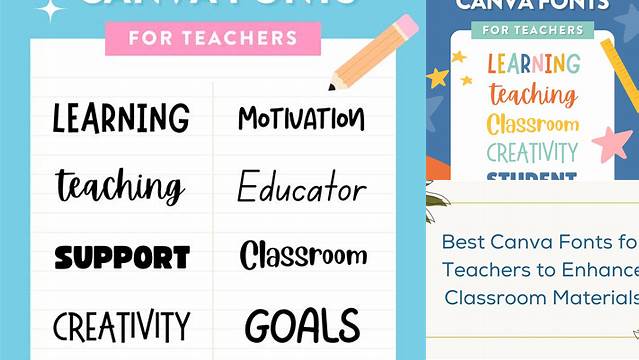
Canva Fonts For Teachers: Design Guide For Classrooms
Hey teachers! Ready to jazz up your classroom materials and make learning even more engaging? Choosing the right fonts in Canva can make a huge difference! It’s like picking the perfect outfit – it needs to look good and feel right. In this guide, we'll dive into some popular Canva fonts for teachers that are perfect for everything from worksheets to posters, ensuring your creations are both visually appealing and easy to read. Let's face it, we all want our students to enjoy the learning process, and a well-designed resource can go a long way. No more boring handouts, folks! We're talking about transforming your lessons into eye-catching experiences. Get ready to boost your designs and make your teaching materials pop! Now, let's get started with some of the best fonts to use. We'll explore different styles, from playful to professional, so you can find the perfect match for your unique teaching style and subject matter. So, grab your virtual design tools and let's make some magic happen! After all, teaching is a form of art, and your resources should reflect that. Let’s make your classroom a visual wonderland where learning is a blast! We’ll go through the details of each font, highlighting its strengths and when it's most effective. Get ready to level up your design game and leave a lasting impression on your students. Your lesson plans are about to get a serious makeover, and your students will be thanking you. Let's explore some amazing font options together.
Why Font Choice Matters in Education
Alright, why does font choice even matter, right? Well, think of fonts as the voice of your design. Choosing the right font is super important because it sets the tone and guides the reader. Imagine trying to read a book with a tiny, curly font – ugh, not fun, right? The same goes for educational materials. A clear, readable font makes the learning process smoother and more enjoyable. First impressions are everything, and the font is the first thing people see. When designing educational materials, it is critical that the material is easy to read, and fonts play a big role in achieving this. A good font isn't just about aesthetics; it's about accessibility and usability. Certain fonts are more accessible for students with visual impairments, so choosing the right font can make your resources inclusive and welcoming. It is also about creating a visually appealing experience that grabs attention and keeps your students engaged. A well-chosen font can transform a simple worksheet into an exciting invitation to learn. Additionally, it’s about setting the mood. A playful font can create a fun and lighthearted atmosphere, while a more professional font can communicate seriousness and reliability. If you're making a presentation for parents, you'd likely choose a font that's clear and easy to read. Font choice is an essential element of the whole design. When it comes to teaching, it makes all the difference. Make sure to pick a font that complements your message and helps your students get the most out of your lesson. Don't underestimate the power of a well-chosen font! It’s a small detail that can have a big impact on the effectiveness of your teaching materials. Let's make sure every design counts!
Top Canva Fonts for Classroom Use
Okay, let’s get to the fun part! Here are some of the top Canva fonts that are perfect for teachers. These fonts are not only aesthetically pleasing but also highly readable, ensuring that your students can easily engage with your materials. We will go through some different font styles, giving you a wide array of choices for various design projects. From playful fonts for young learners to more formal options for older students, we will explore all kinds of cool fonts. Keep in mind that different fonts suit different purposes, so it's worth experimenting with different combinations and styles to find what works best for your classroom. We're talking about making sure your lessons are not only educational but also fun and engaging for your students. Prepare to step up your design game and create some killer resources. Here are a few of our favorites.
Playful & Fun Fonts
Let’s kick things off with some playful fonts perfect for younger learners. These fonts add a touch of fun and whimsy to your designs, making them perfect for elementary school materials and activities. These fonts are all about making learning fun and making the lessons more entertaining for the kids. They are meant to capture the imagination and bring joy to the learning process! They grab attention and are super easy to read, even for those just learning their ABCs. Let's dive in!
- Comic Neue: This font is a modern take on the classic comic sans. It is a fun and approachable font that is perfect for creating engaging materials for younger students. Its slightly rounded appearance makes it easy to read, and it adds a friendly touch. This font is ideal for headlines, short paragraphs, and any design where you want to create a fun, casual vibe. It’s a safe bet for any classroom material that you want to make kid-friendly.
- Permanent Marker: This font replicates handwritten notes. It's perfect for creating a personal touch, like adding instructions or notes that make students feel like they are getting a personalized message. Its informal style is ideal for worksheets, posters, and anything that requires a friendly, approachable feel. It brings a sense of authenticity and warmth to your designs, as if it's written directly from you!
- Bubblegum Sans: This font is bold, bubbly, and bursting with personality! It’s great for headlines, titles, and any text that needs to stand out. It adds a cheerful and energetic vibe to your designs and is perfect for young children. The font is easy to read. This font will definitely make your creations pop and make learning a joyful experience.
Clear & Readable Fonts
Sometimes you just need a font that gets the job done – clear, concise, and easy to read. These fonts are perfect for body text, worksheets, and any materials where readability is key. These fonts are like the workhorses of the design world, ensuring that your students can easily grasp the information you are sharing. These are all about clarity and efficiency. It's about making sure that your students can focus on the content without struggling with the font itself. Let's take a look!
- Open Sans: This is a versatile font that is both modern and clean. It is easy to read, making it perfect for worksheets, presentations, and any content that requires clarity. Its simple design ensures that students can focus on the content without being distracted by fancy typography. It's like the Swiss Army knife of fonts – it works well in almost any situation.
- Lato: Known for its friendly and approachable look, Lato is a popular choice for educational materials. It's extremely readable and works well in both headings and body text. Its rounded letterforms make it easy on the eyes, which is crucial when students are reading long texts. Whether you're creating a lesson plan or a handout, Lato is a reliable option.
- Roboto: This is another great font for readability. It is clear and modern, ensuring your students can easily read and comprehend the text. Its clean lines make it perfect for any kind of educational design. Its neutral appearance doesn’t draw unnecessary attention, but its design still ensures excellent legibility. Its simple look makes it the perfect option for all your teaching needs.
So there you have it, friends! Choosing the right Canva fonts for teachers is a simple way to enhance your teaching materials. From playful options to professional fonts, there’s something for every classroom and every subject. Remember, the goal is to make learning fun, engaging, and accessible for all your students. Now that you know all the different font styles, you can start designing amazing educational materials that will help your students learn and grow. By incorporating these fonts and following the tips provided, you can transform your lesson plans into visually appealing and highly effective learning experiences. Go ahead and start designing, and have fun with it! With a little creativity and the right fonts, you can take your classroom designs to the next level. Start exploring these fonts, experiment with different combinations, and let your creativity shine. Your students will thank you!